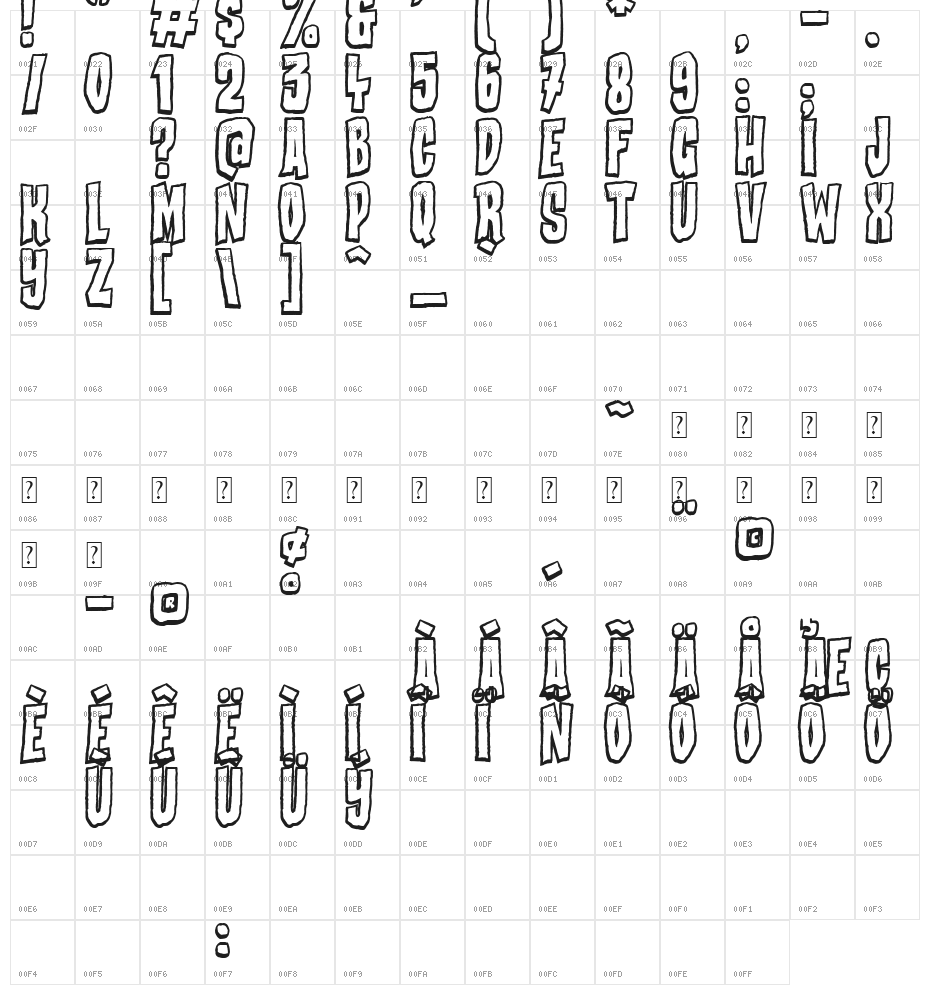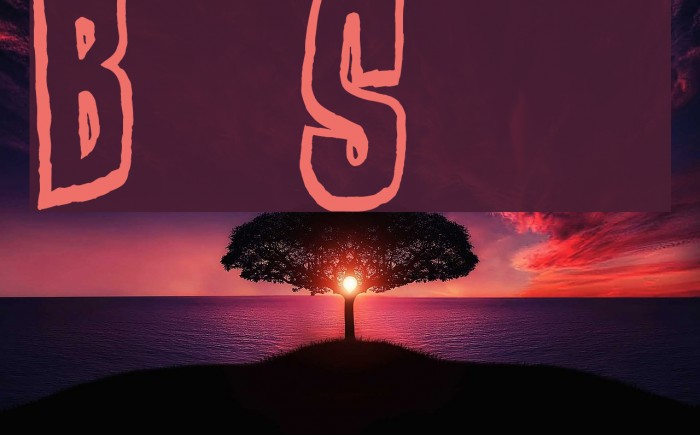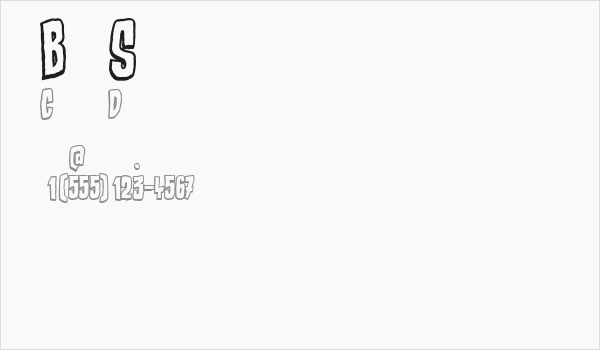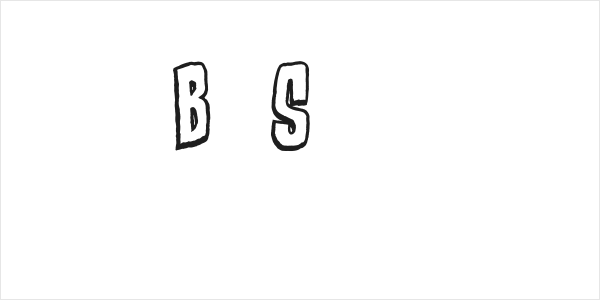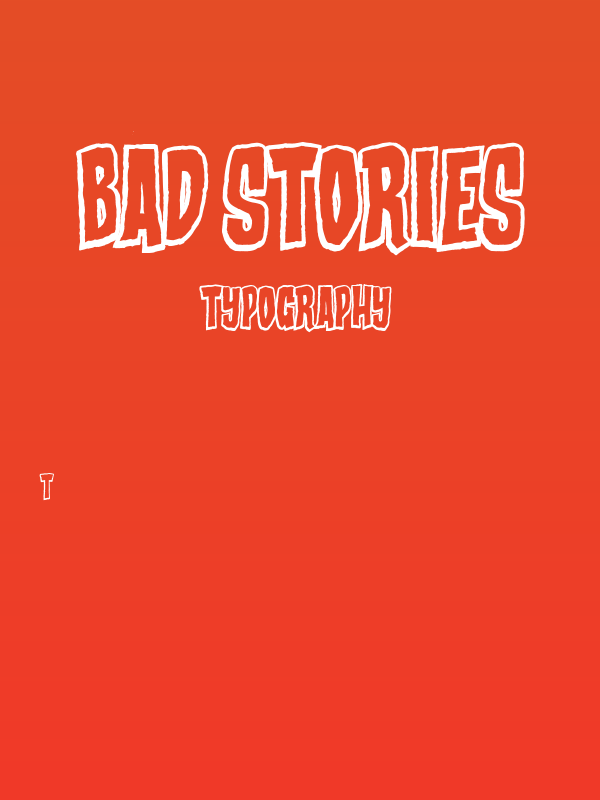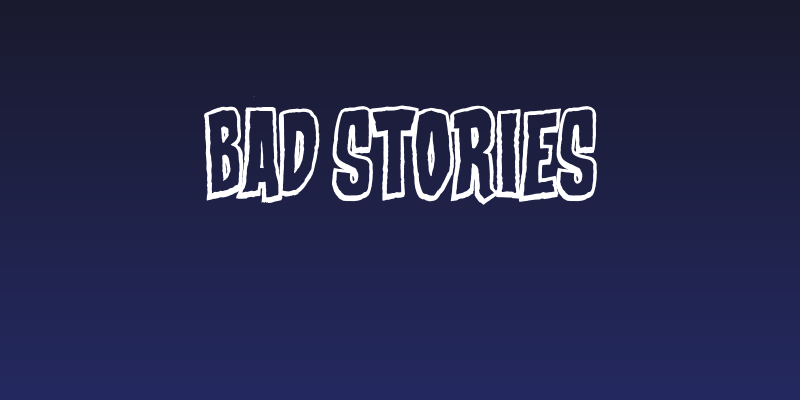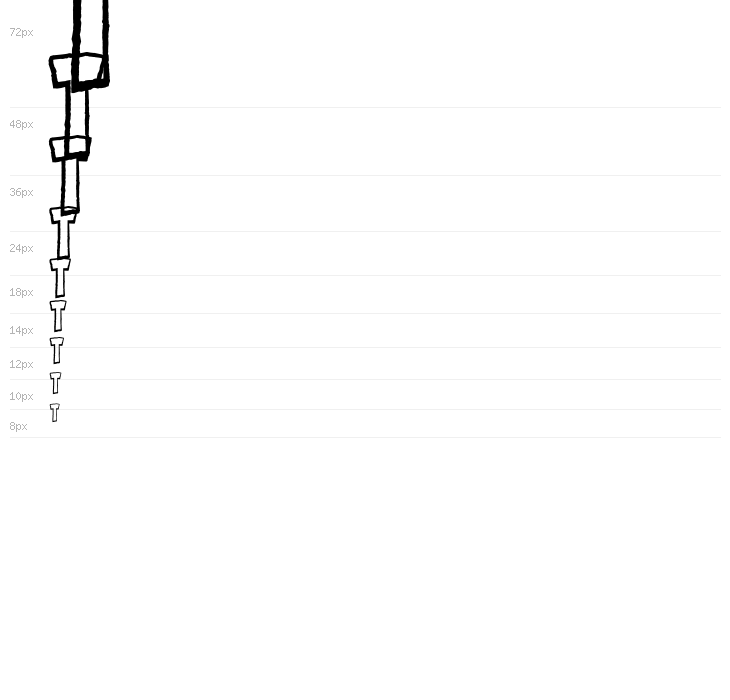
Bad Stories Font
Bad Stories Description
This font features a bold, hand-drawn style with a playful and slightly chaotic appearance. The letters are characterized by irregular, jagged edges and a thick outline that gives them a cartoonish and dynamic feel. The uppercase letters are prominent and bold, while the numbers and special characters maintain the same energetic style. This font's unique and eye-catching design makes it suitable for projects that require a fun and informal touch. The uneven strokes and exaggerated forms contribute to its distinctive personality, making it ideal for creative and artistic applications.
| Overall Style | Playful, Cartoonish, Dynamic |
| Use Case | Headlines, Posters, Creative Projects |
| Proposed Projects | Comic books, children's posters, playful branding, and creative event invitations. |